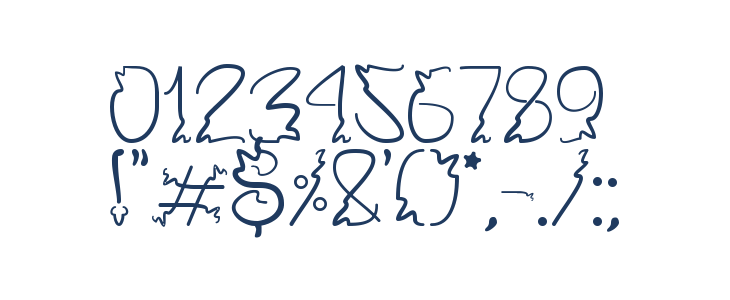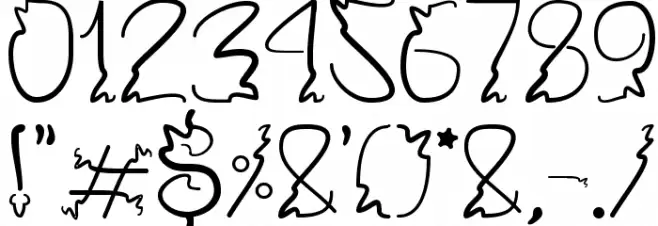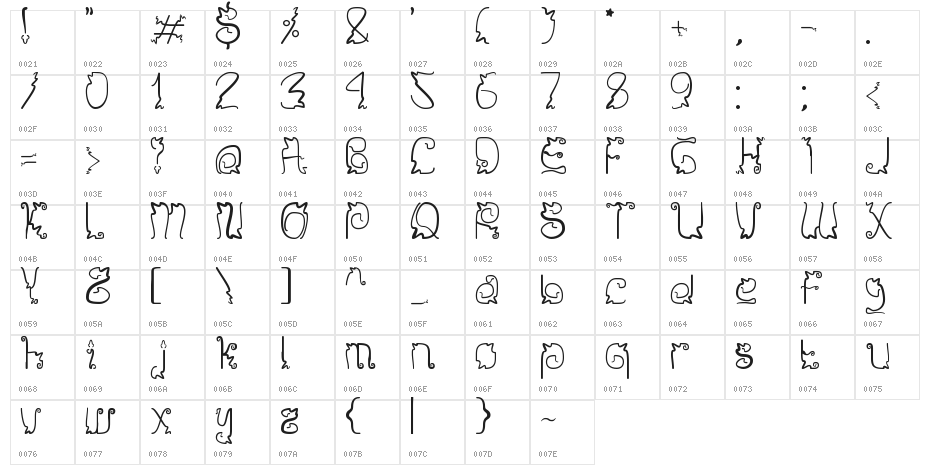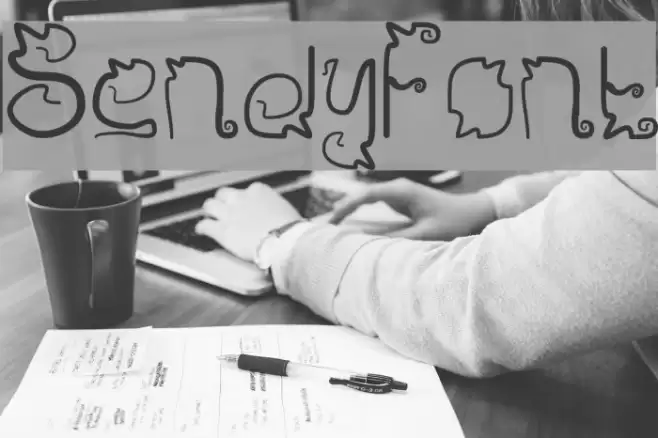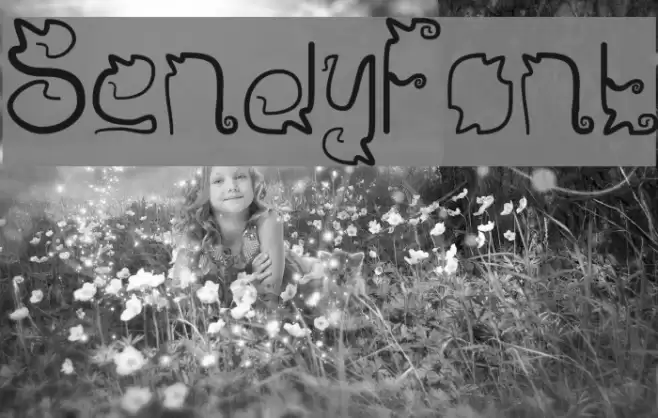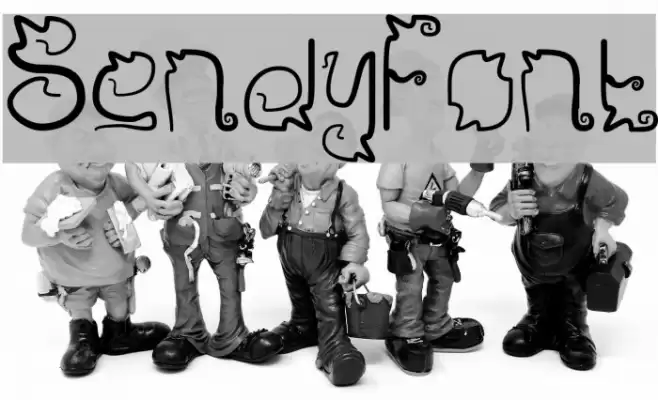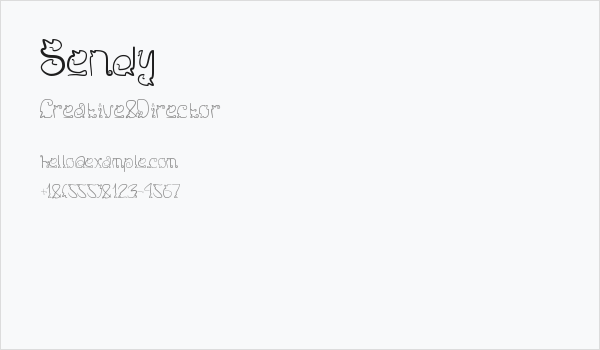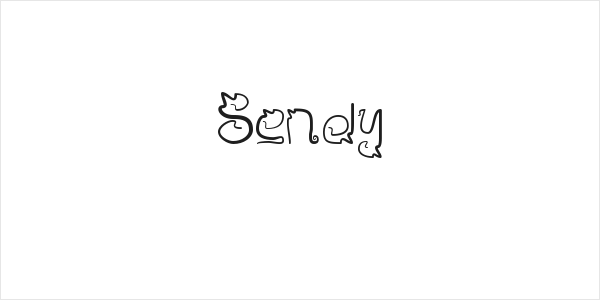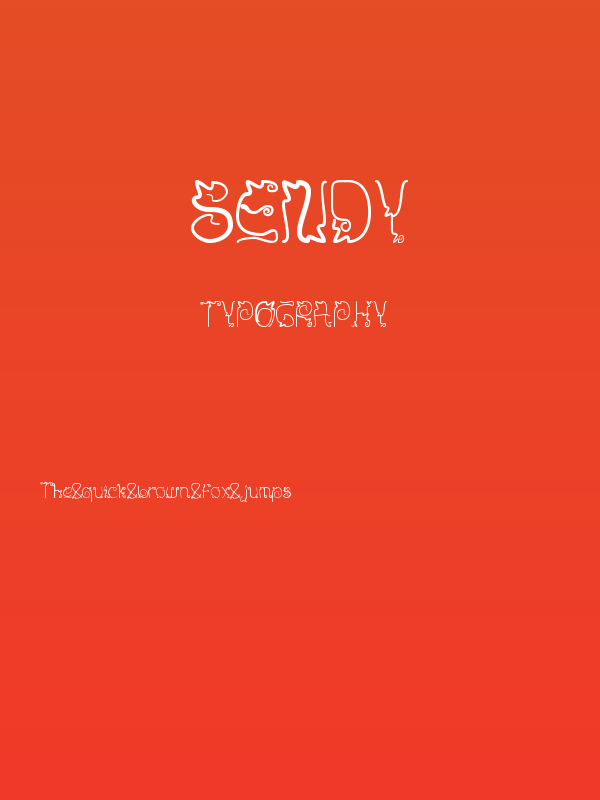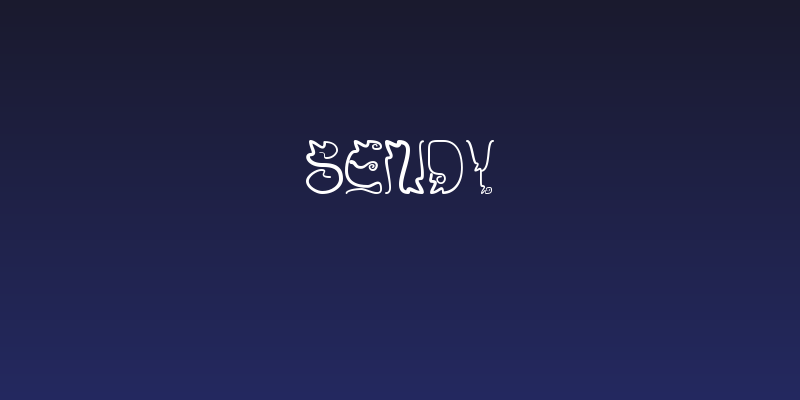
Sendy Font
Sendy Description
This font features a whimsical and playful design, characterized by its unique and irregular shapes. Each letter is crafted with a sense of movement and creativity, incorporating curls and unexpected twists that give it a lively appearance. The uppercase and lowercase letters maintain a consistent style, with exaggerated curves and loops that add to its decorative nature. Numbers and special characters follow the same playful theme, making the font suitable for projects that require a fun and artistic touch. The overall design is bold and eye-catching, perfect for capturing attention.
| Proposed Projects | Ideal for children's books, playful branding, creative posters, and artistic invitations. |